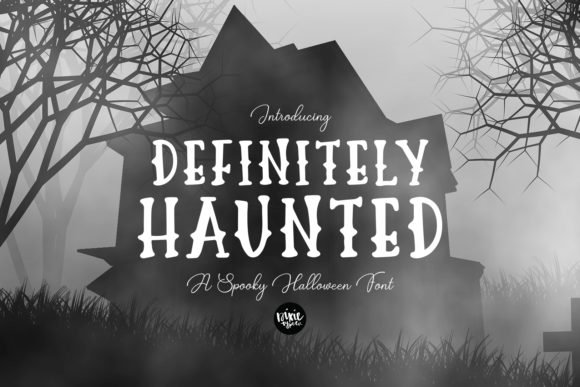
Unleash the Spooky Spirit: Get Ready for the Definitely Haunted Font
It’s that time of the year again – Halloween is just around the corner, and you’re probably itching to unleash your creativity and make some spooky magic happen. You’ve got your pumpkins carved, your skeletons posed, and your cobwebs hanging from the ceiling, but something’s missing. That’s where the Definitely Haunted Font comes in – a bewitching display font that will transport your designs to a realm of eerie elegance.
This enchanting font is perfect for designers looking to add an extra layer of mystery and intrigue to their Halloween-themed projects. Whether you’re creating spooky invitations, eerie posters, or haunted website designs, the Definitely Haunted Font is sure to cast a spell on your audience. Its unique style and versatility make it a valuable addition to any designer’s toolkit.
Key Features of Definitely Haunted Font
- Font Family: Definitely Haunted Font is a unique, hand-drawn font that features a spooky and mysterious aesthetic.
- Unique Characteristics: The font features intricate, hand-drawn details and subtle texture, giving it a one-of-a-kind look that’s perfect for adding a touch of eeriness to designs.
Definitely Haunted Font Review
Overall, I have mixed feelings about the Definitely Haunted Font. While it has some unique features that could work well in certain projects, it also has some limitations that may hold it back.
- The font’s bold and eerie aesthetic is perfect for horror-themed projects, such as movie posters or haunted house websites.
- The font’s irregular shapes and lines create a sense of unease, which can be effective in conveying a spooky atmosphere.
- The font is highly customizable, with many options for adjusting the spacing, size, and color of the text.
- The font may be too over-the-top for some projects, and could come across as cheesy or kitschy.
- The font’s irregular shapes can make it difficult to read, especially in large blocks of text.
- The font may not be suitable for projects that require a more serious or professional tone.
While the Definitely Haunted Font has some unique features that could work well in certain projects, its limitations may hold it back from being a truly effective font. With some careful consideration and use, it could be a great choice for horror-themed projects or other applications where a spooky atmosphere is desired.
For optimal results, use the Definitely Haunted Font in bold or italic styles to emphasize text.
– Creating spooky invitations or party decorations.
– Designing horror-themed posters or book covers.
– Adding a touch of eeriness to your social media graphics or website content.